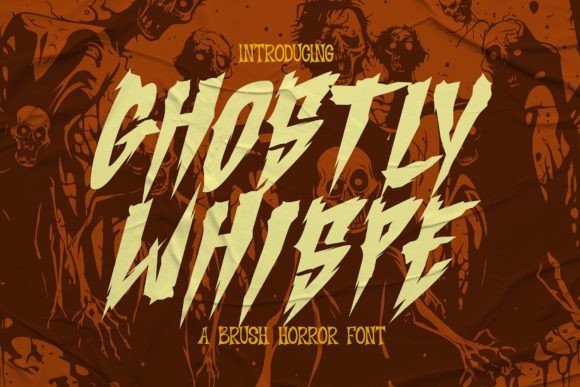
Unleash the Chill: Mastering the Art of Spine-Chilling Design with Ghoslty Whispe Font
Have you ever stared at a blank canvas, struggling to find the perfect font to capture the essence of your eerie masterpiece? You’re not alone. Many designers face this dilemma, especially when it comes to creating spine-tingling Halloween-themed content. That’s where Ghoslty Whispe Font comes in – a hauntingly beautiful brush horror font that will transport your audience to a realm of unrelenting suspense.
This foreboding font is more than just a tool for designers; it’s an experience. Its disquieting design and ominous brush strokes will leave your viewers on the edge of their seats, craving more. Whether you’re crafting a chilling invitation, revamping a poster, or creating a haunting social media graphic, Ghoslty Whispe Font is the perfect companion to breathe life into your creations.
- Unique Characteristics: Distressed, Horror-inspired, and Whimsical font with a touch of macabre elegance, perfect for adding a spooky atmosphere to designs
Ghoulstry Whispe Font Review
I recently had the chance to work with the Ghoulstry Whispe Font, and I must say it’s a unique addition to any design project. Here are my thoughts on what works well and what doesn’t:
- Eerie atmosphere: The Ghoulstry Whispe Font has a hauntingly beautiful quality that’s perfect for horror-themed projects or anything that needs a spooky vibe.
- Legibility: Despite its unconventional design, the font is surprisingly readable, making it a great choice for body text or headlines.
- Customization options: The font offers a range of customization options, including size, color, and spacing, which can help you fine-tune the look to your liking.
- Overuse potential: The Ghoulstry Whispe Font is so unique that it may be tempting to overuse it in a project, which can lead to visual fatigue.
- Limited versatility: While the font is great for horror-themed projects, it may not be the best choice for more lighthearted or professional designs.
Overall, the Ghoulstry Whispe Font is a great choice for designers who need a unique, eerie font for a specific project. Just be mindful of its limitations and use it thoughtfully to avoid overuse and visual fatigue.
Use Ghoslt Whispe Font to create a spooky or eerie atmosphere in your designs, such as:
- Haunted house invitations
- Spooky-themed social media graphics
- Creepy typography for horror movies or books
Remember to use the font in moderation and balance it with other design elements to avoid overwhelming the viewer.